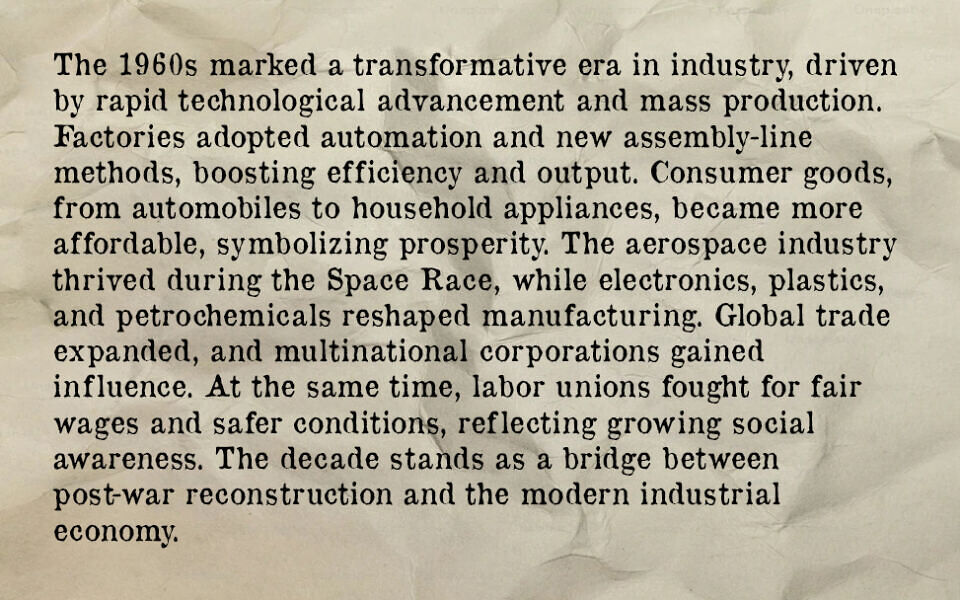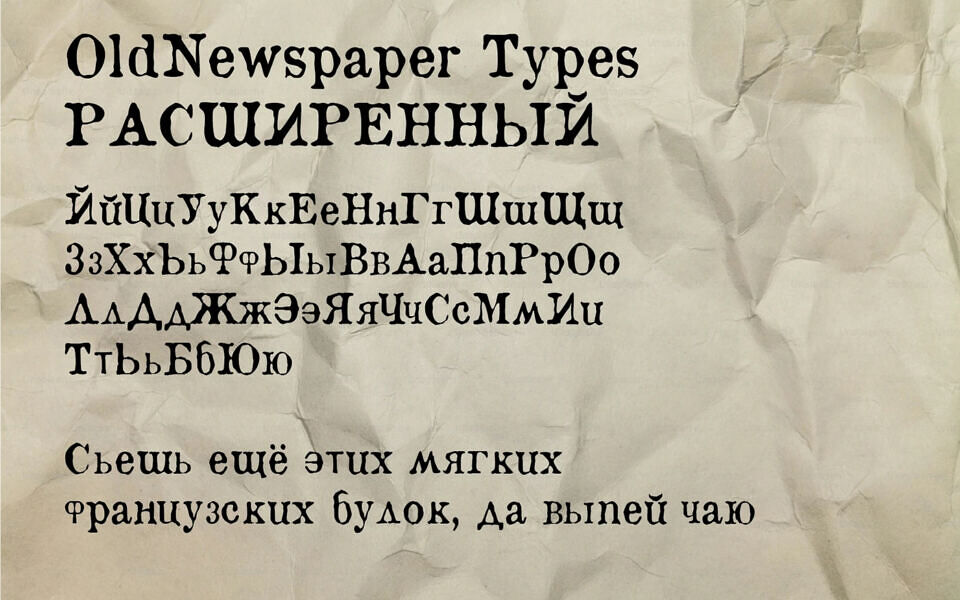
The Old Newspaper Types is a bold, vintage-inspired typeface that captures the raw charm of old printing presses and worn newspaper headlines. With its irregular strokes, rough edges, and distressed details, this font creates an authentic retro feel, perfect for posters, horror themes, and antique-style projects.
Its uneven letterforms mimic aged print textures, adding character and personality to any design. Ideal for headlines, logos, or creative typography, Old Newspaper Types stands out with a nostalgic yet dramatic flair, making it a go-to choice for designers seeking an old newspaper font aesthetic.